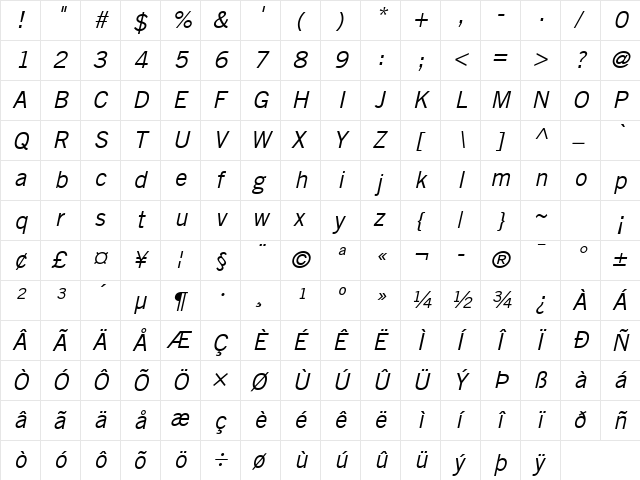
Trade Gothic LT Com Oblique Font Preview
Trade Gothic LT Com Oblique
Trade Gothic LT Com Oblique Font Details
| Foundry | Linotype GmbH |
| Designer | Jackson Burke |
Design Context for Trade Gothic LT Com Typeface
Trade Gothic LT Com has the quiet confidence of well-executed sans-serif typography: versatile, unobtrusive, and dependable at any size. The dynamic lean of this cut emphasises speed and emphasis in any layout. The delicate stroke weight brings airiness and refinement to layouts.
Ideal for fashion and beauty branding, minimal editorial layouts, and premium digital experiences.
Font Pairing: Pair Trade Gothic LT Com with a medium or bold serif for headlines — the weight contrast creates an elegant, high-end feel.
Pro Tip: Avoid using Trade Gothic LT Com at very small sizes where its slender strokes can disappear. It performs best at medium to large sizes.